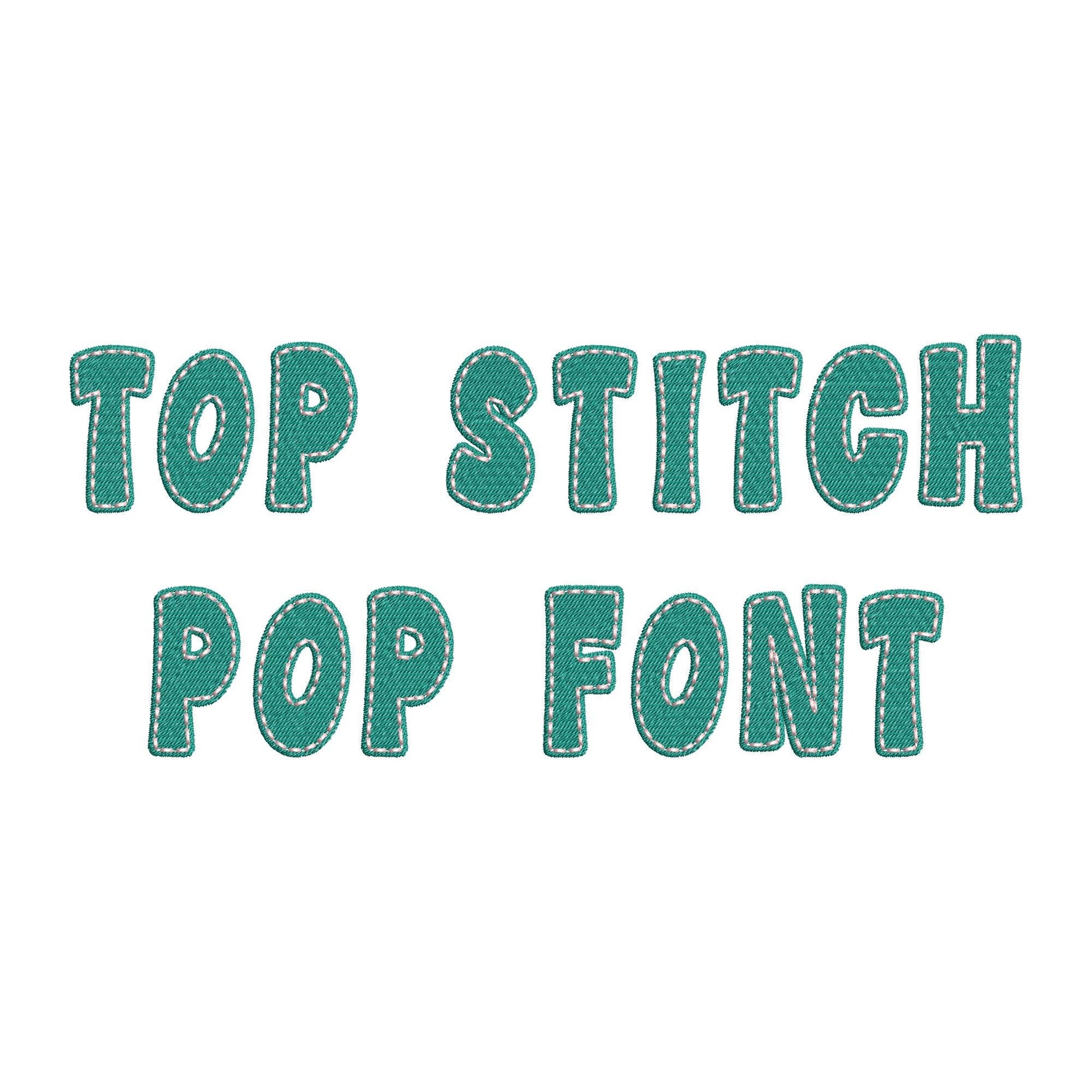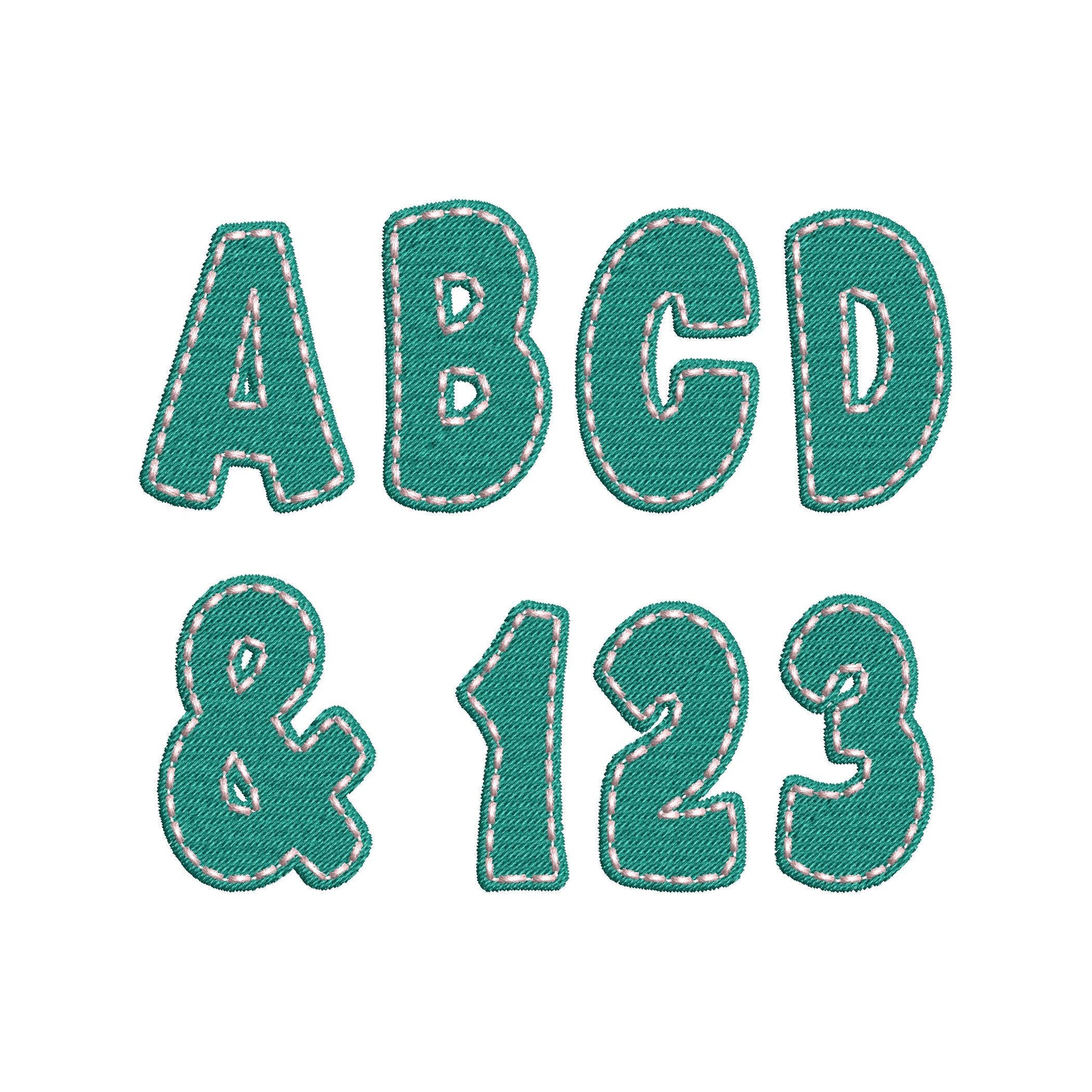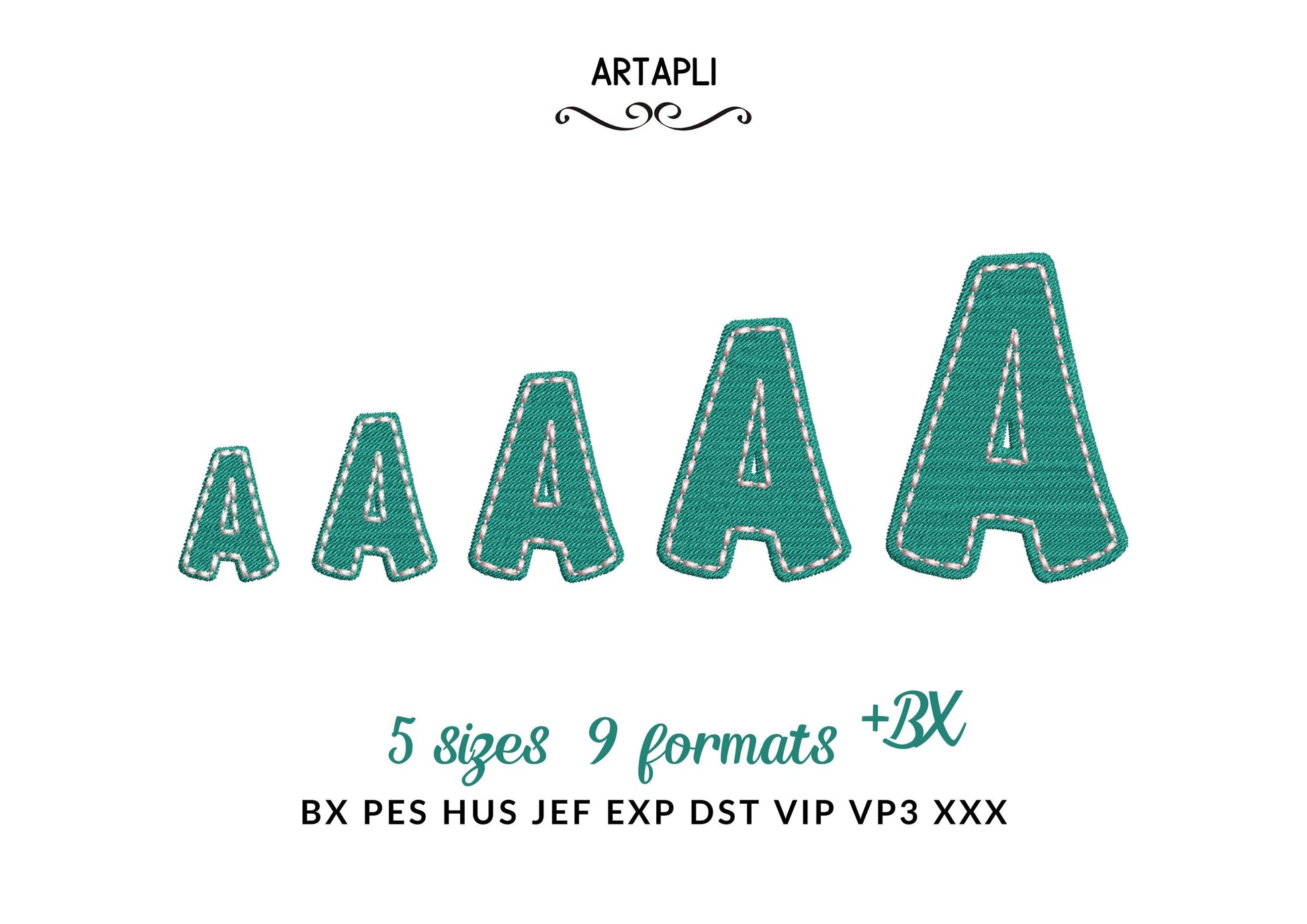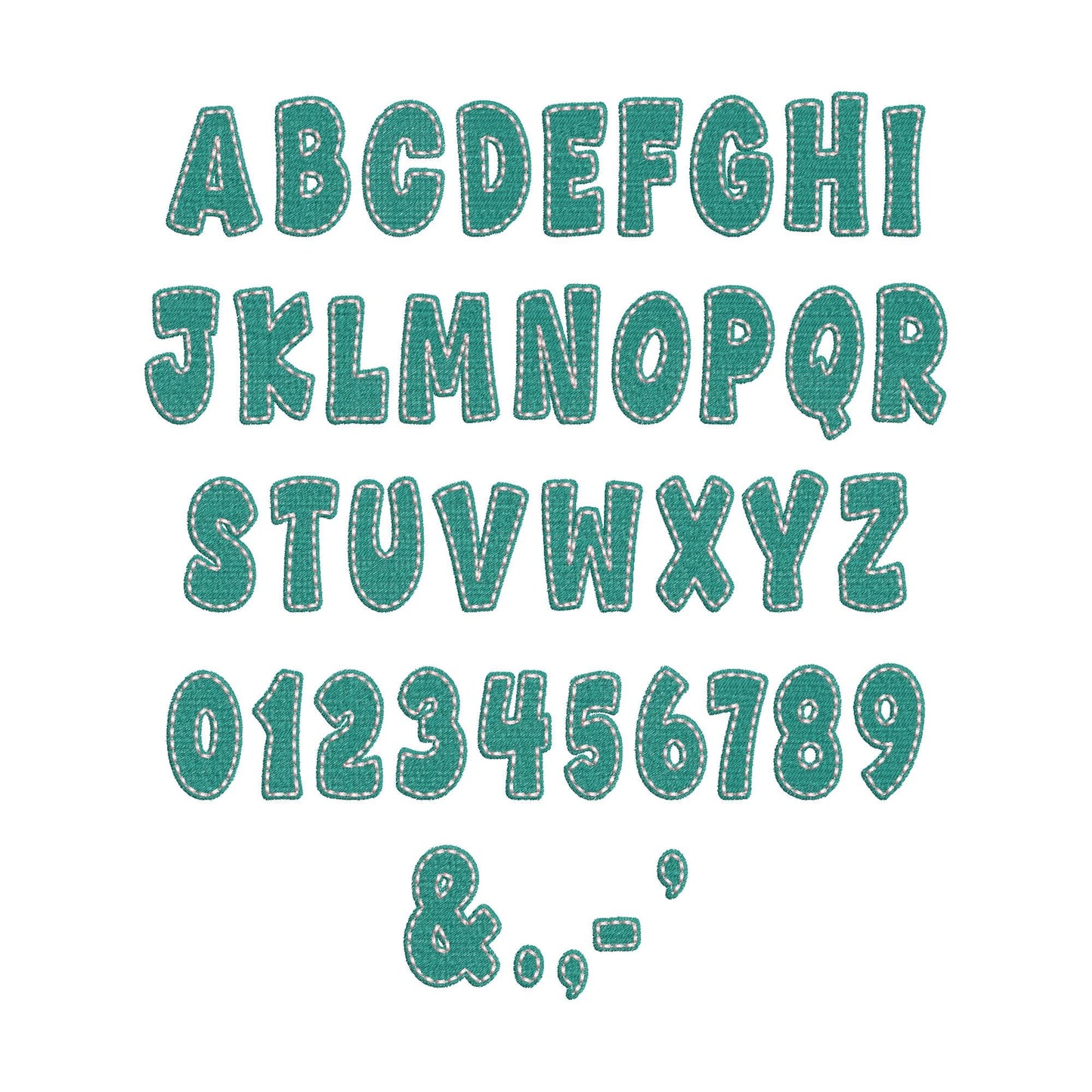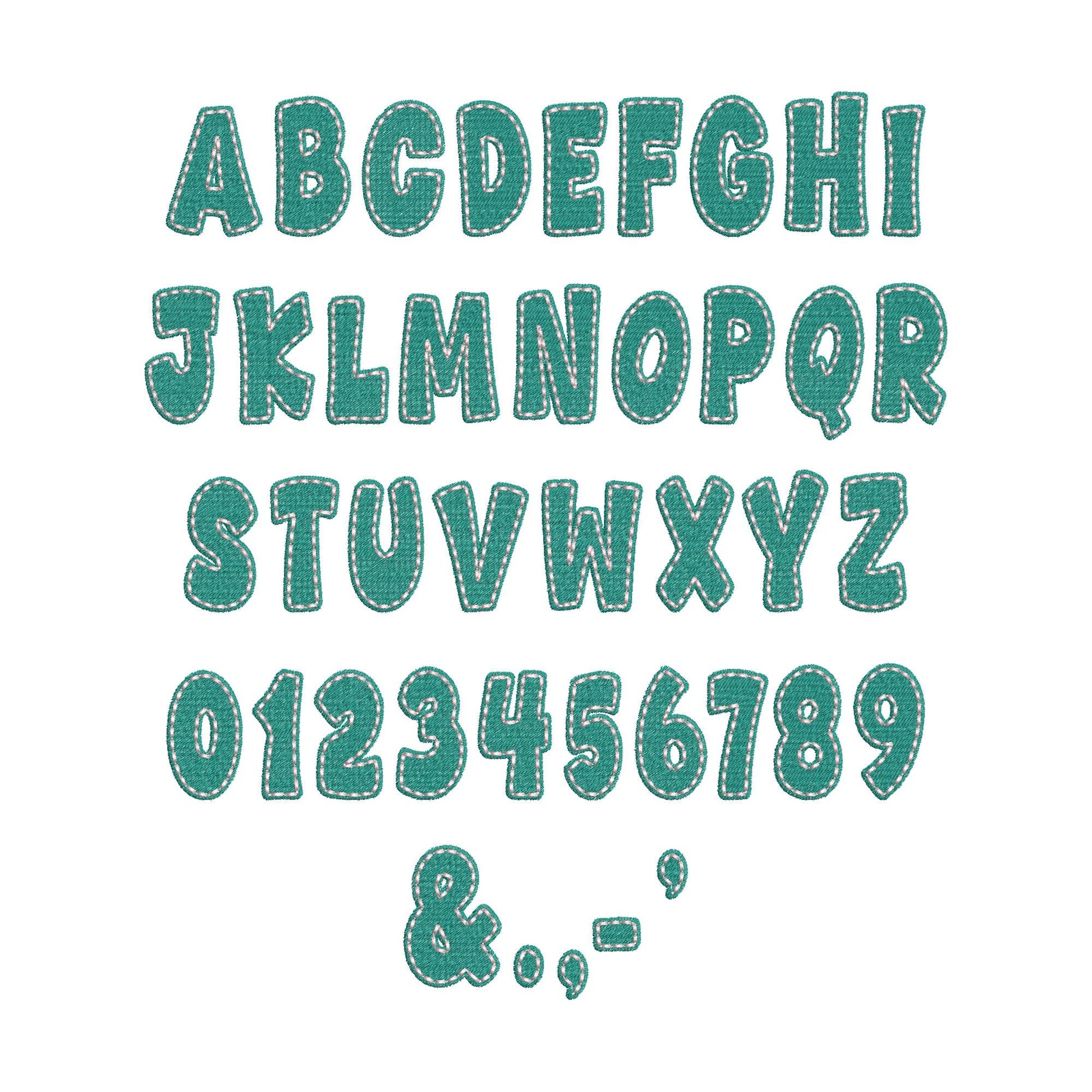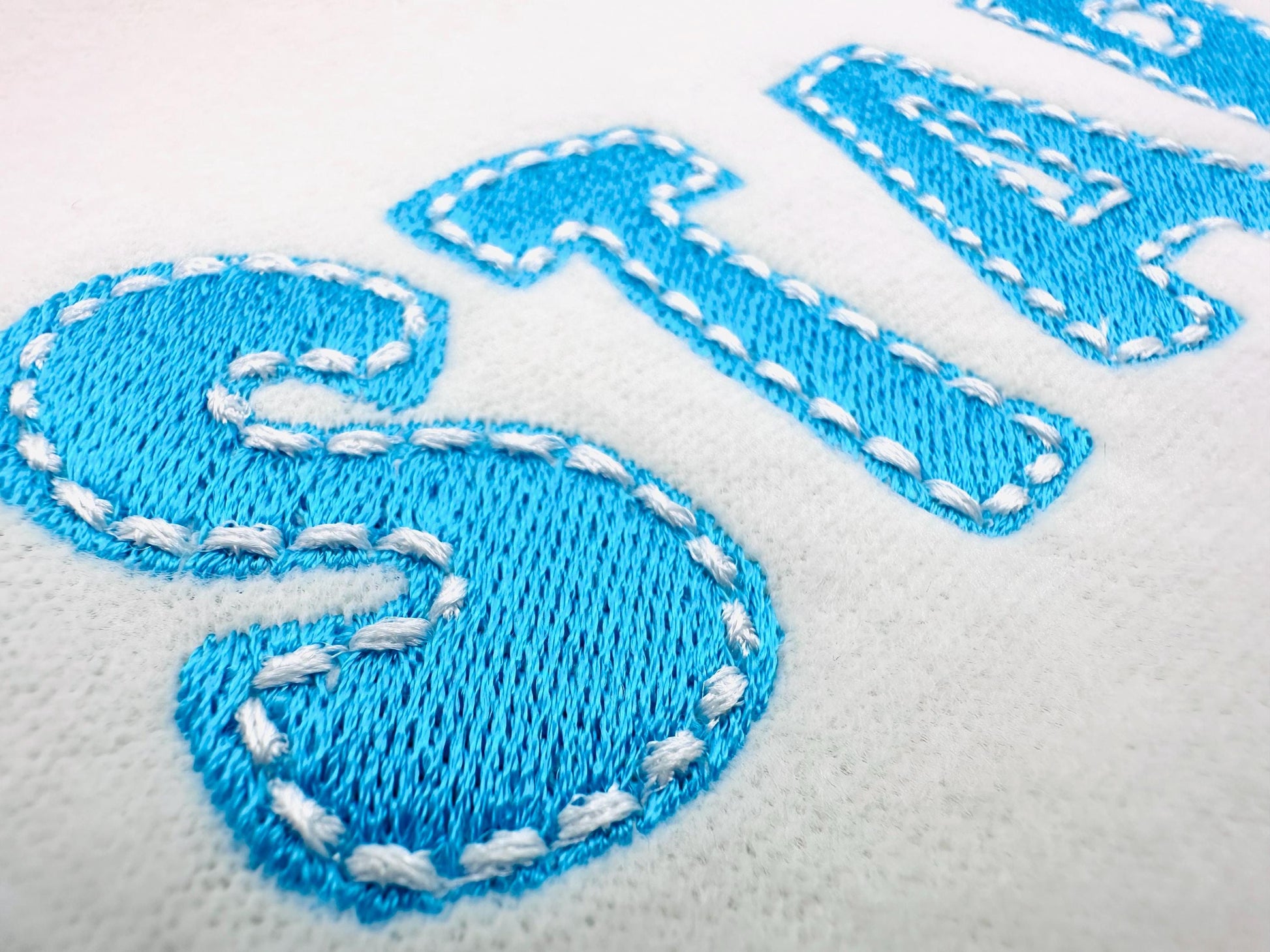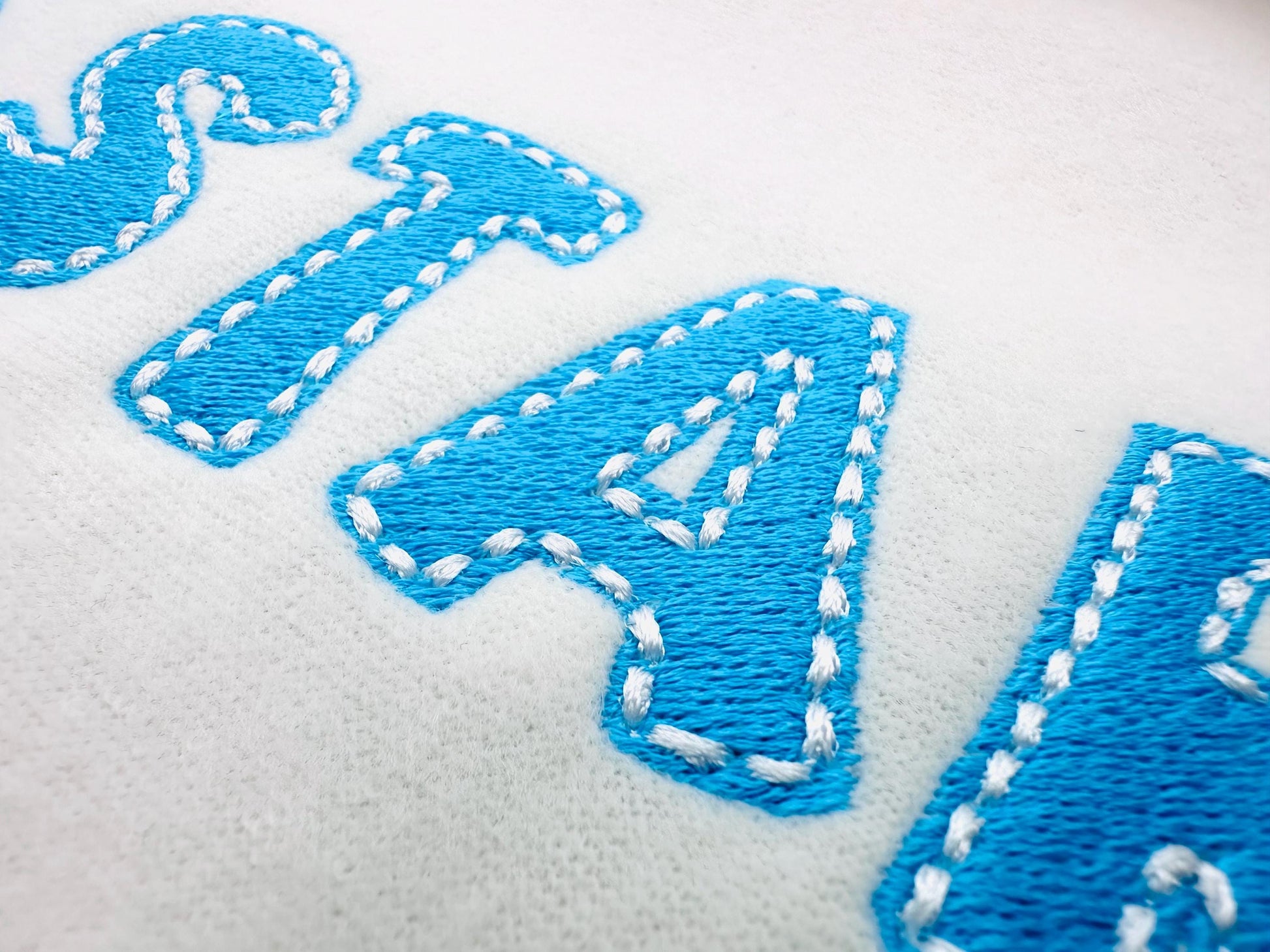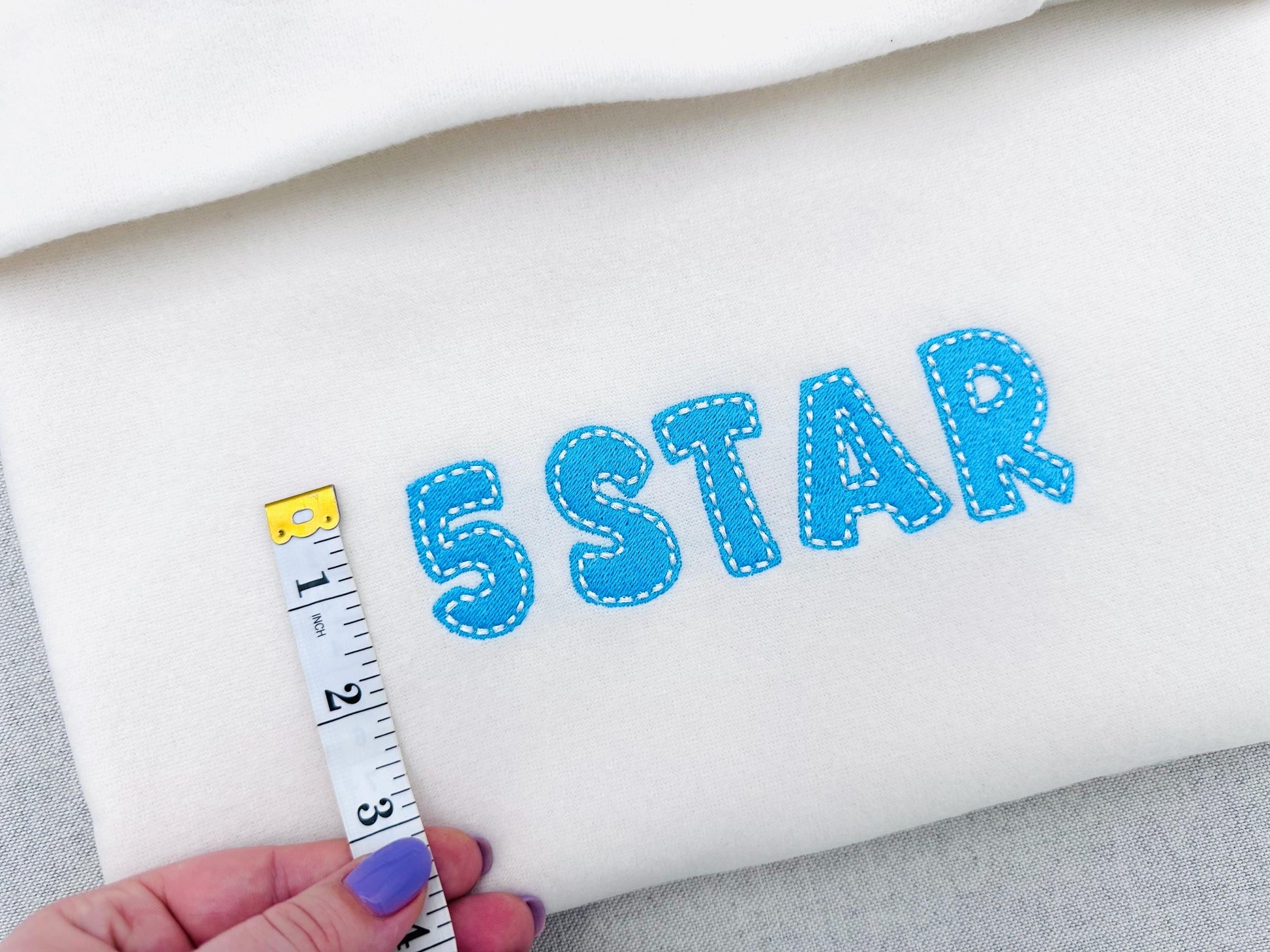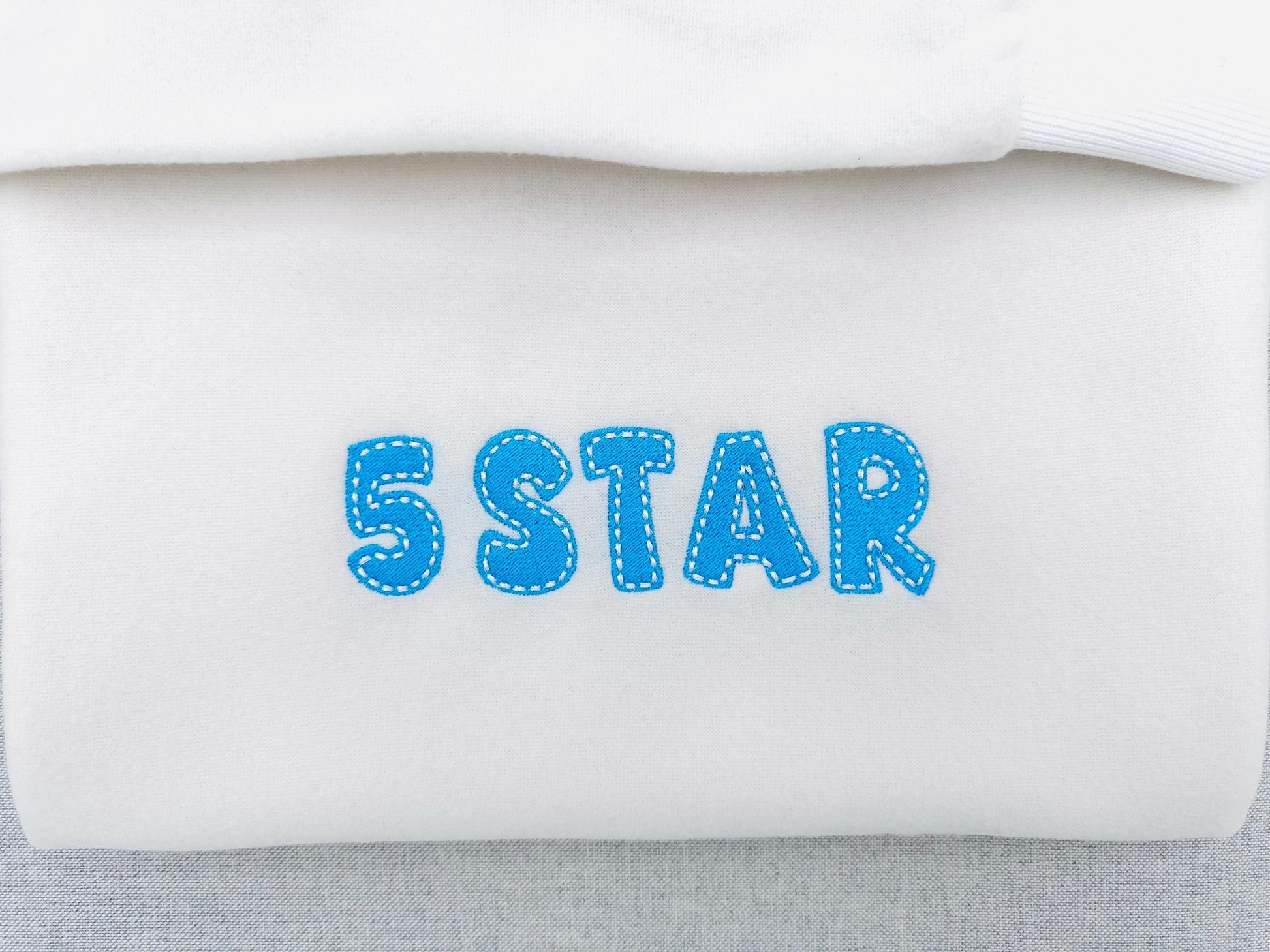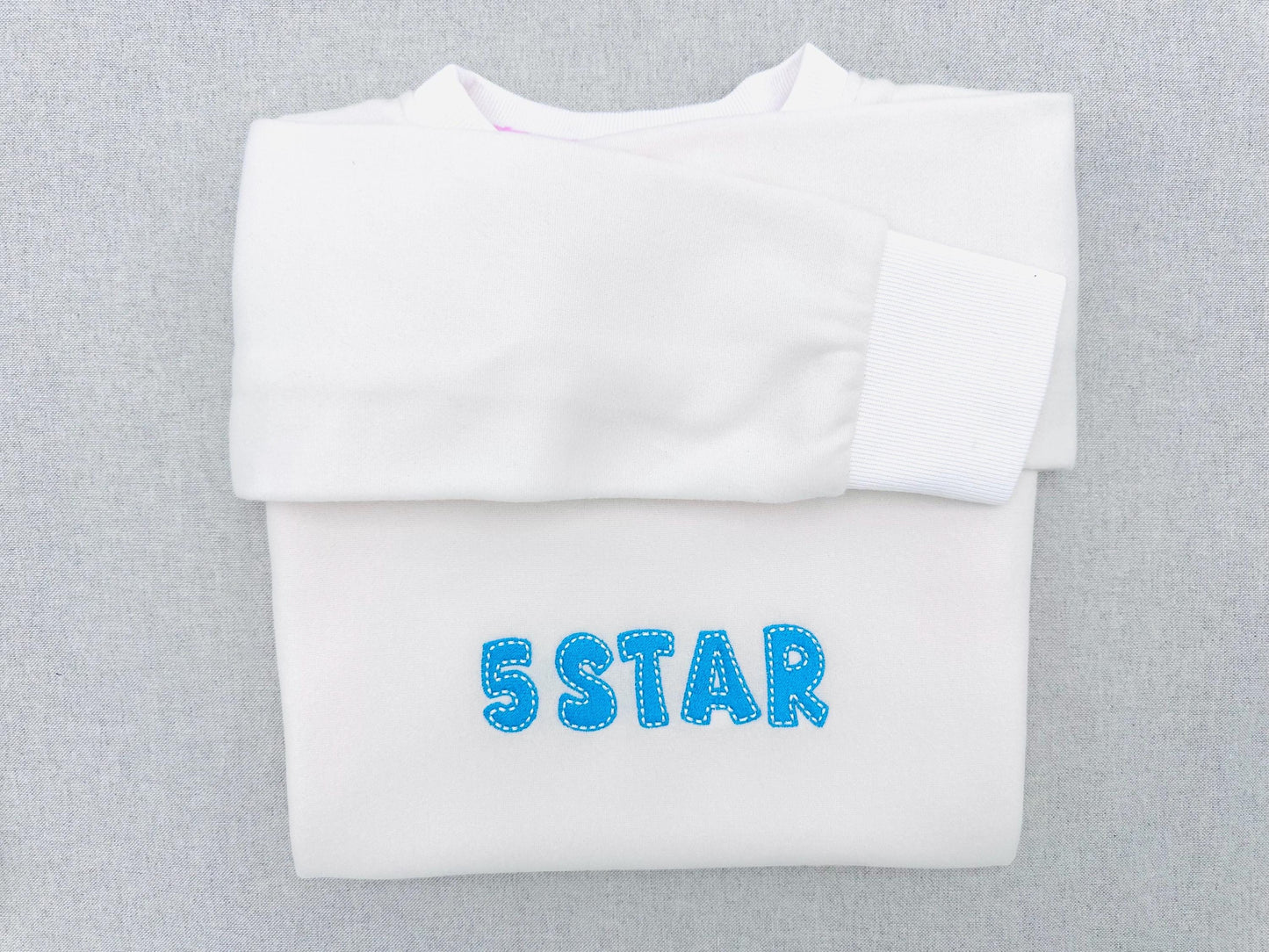
Fill stitch Pop Font
Or click to open the linkA fun fill stitch font with a hand-stitched look on top. Great for kids' names, monograms and gifts.
The letters come in five sizes: 1.2, 1.5, 2, 2.5 and 3 inches. Fill stitch letters with a running line on top that looks hand-stitched. Includes uppercase letters A to Z, numbers 0 to 9 and punctuation.
- Fill stitch font with hand-stitch look
- Uppercase A to Z, numbers 0 to 9, punctuation
- 5 sizes, 1.2 to 3 in